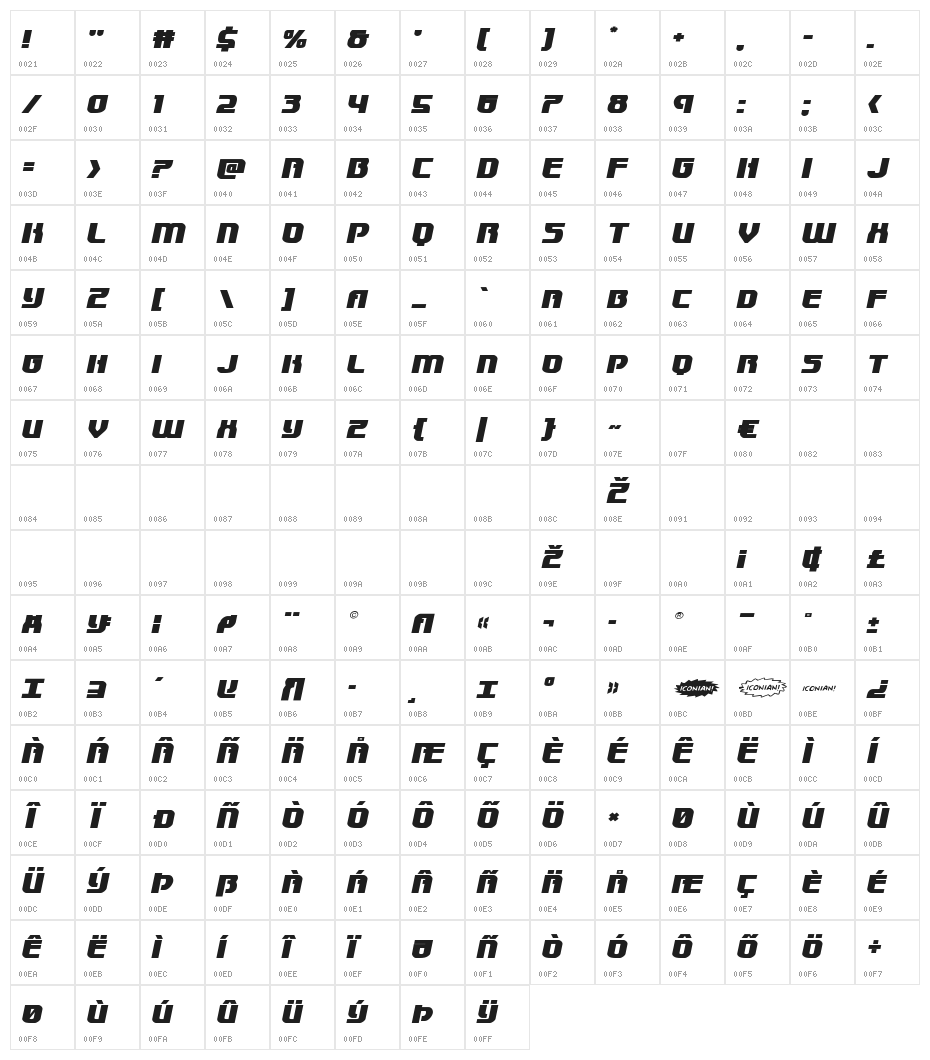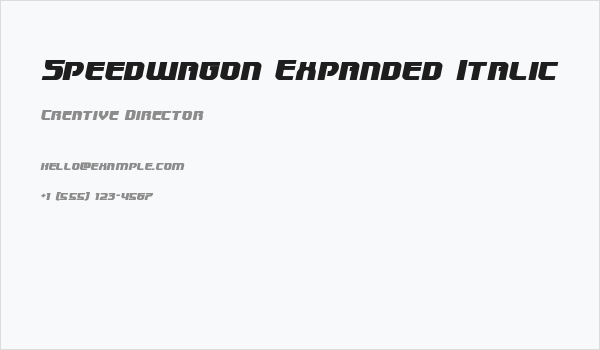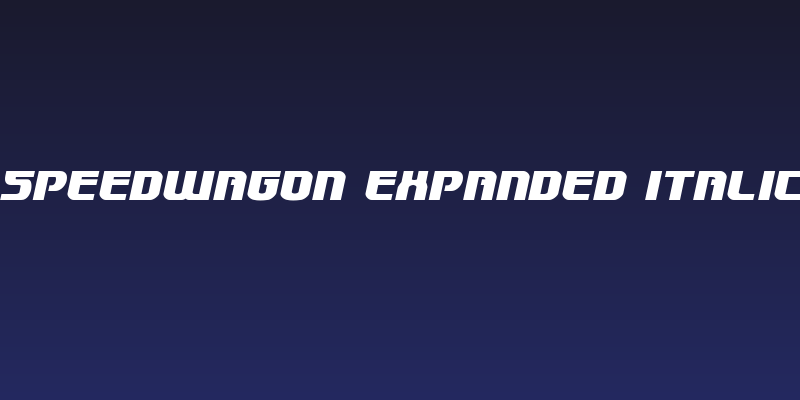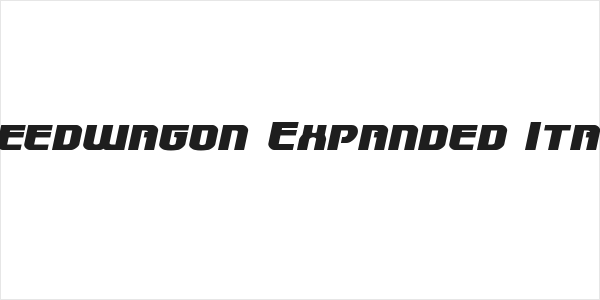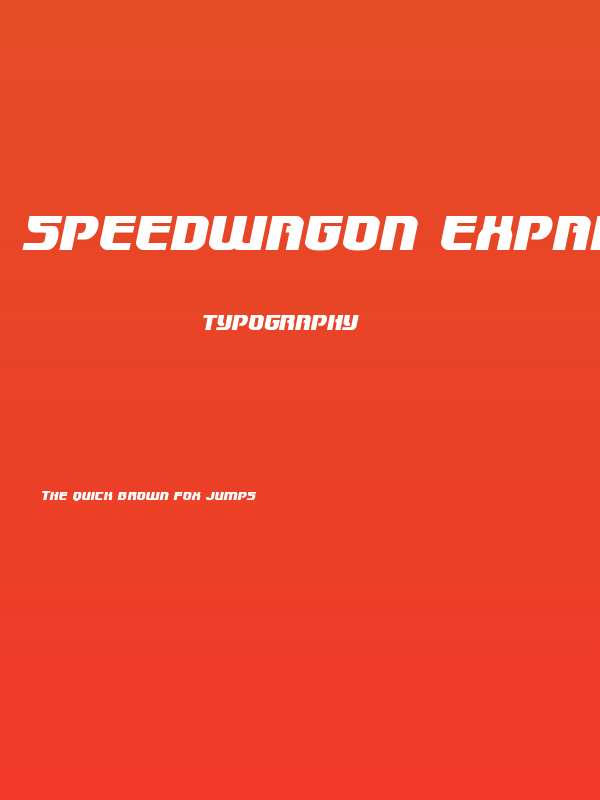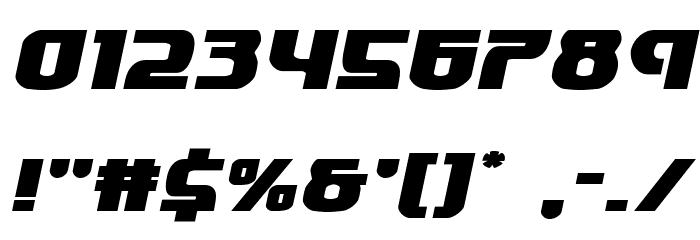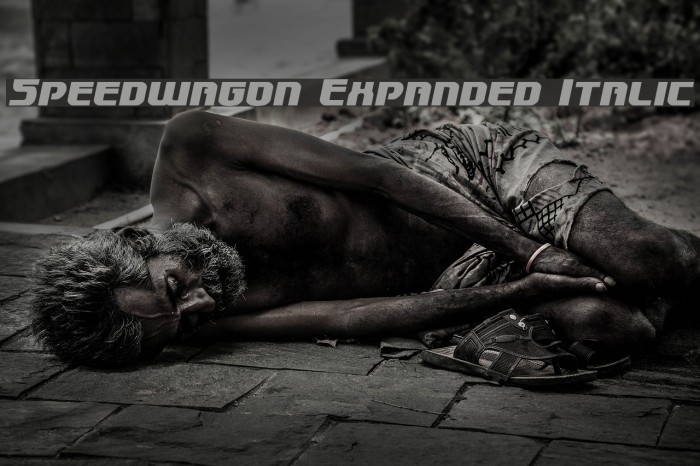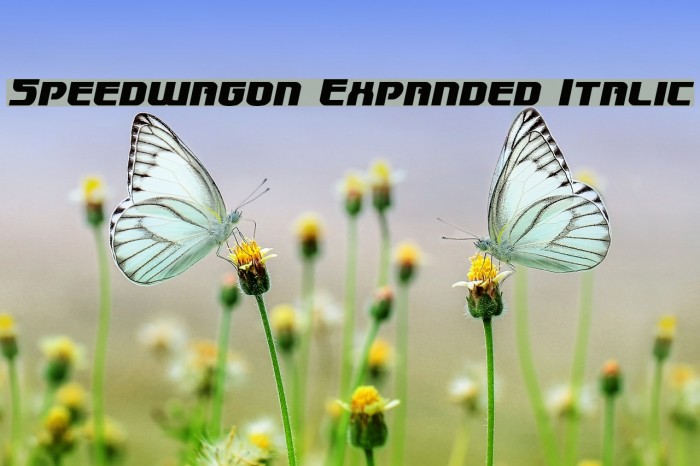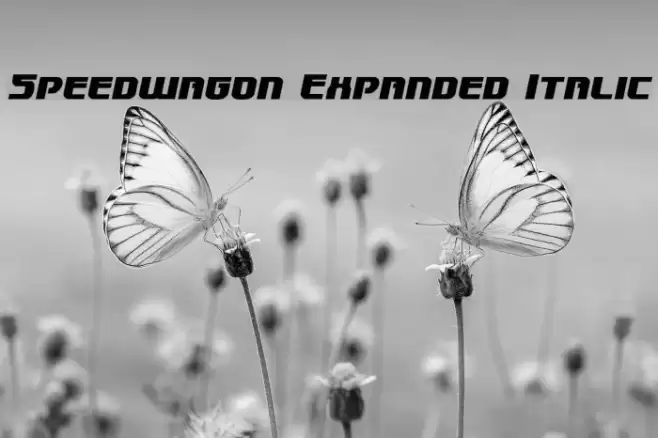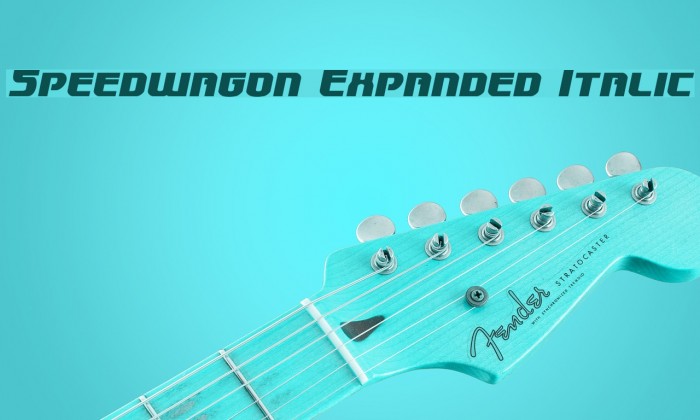
Speedwagon Expanded Italic Font
| おすすめプロジェクト | Ideal for sports branding, dynamic posters, video game titles, and any project requiring a bold and energetic typeface. |